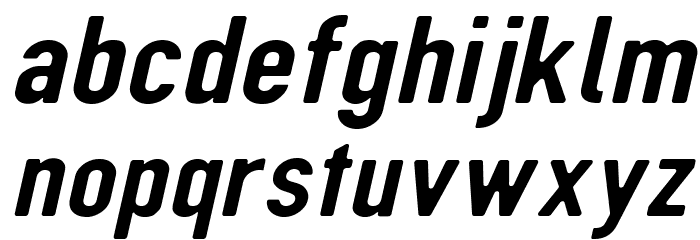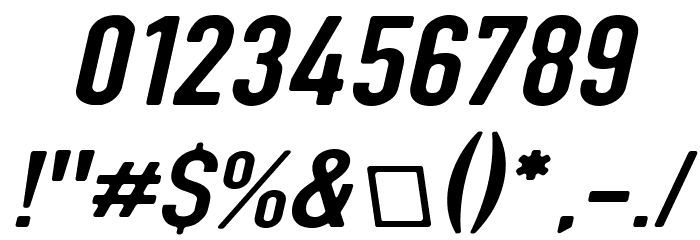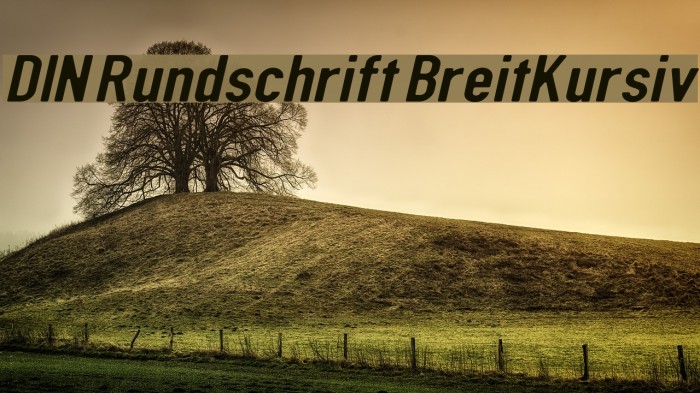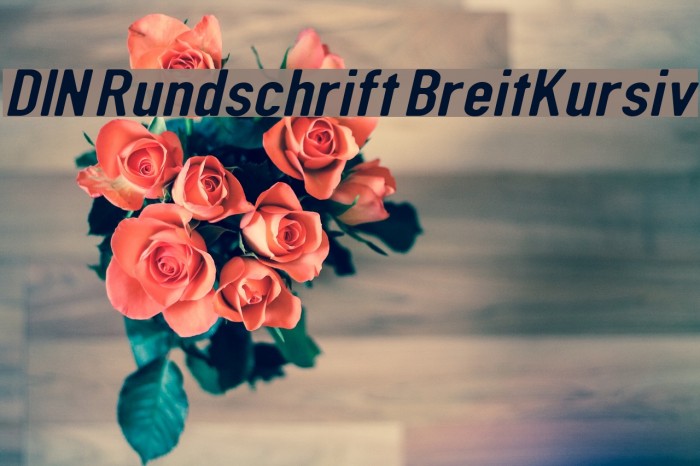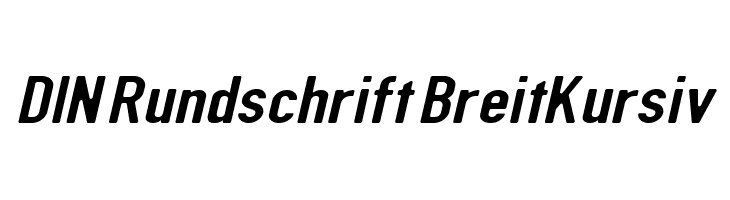
DIN Rundschrift BreitKursiv Font
This font exhibits a modern and clean design with a slight italic slant, giving it a dynamic and forward-moving appearance. The characters are bold and have a consistent stroke width, which contributes to its strong and assertive look. The rounded edges soften the overall feel, making it approachable while maintaining a professional tone. The spacing between characters is normal, ensuring readability and clarity. This typeface is versatile, suitable for various applications where a contemporary and sleek style is desired.
A modern, bold, and italic font with rounded edges and consistent stroke width.
- Proposed Projects: Ideal for branding, signage, headlines, and digital interfaces where a modern and professional look is required.
- Use Case: Headlines, Logos, Signage